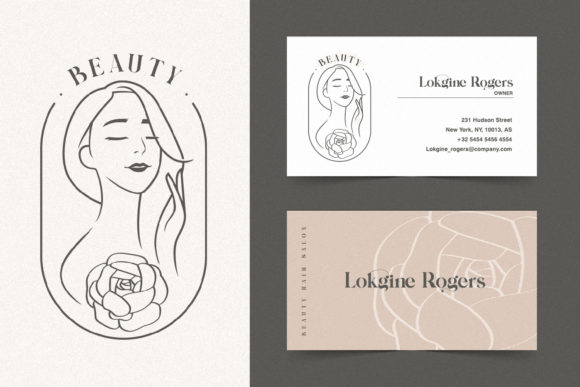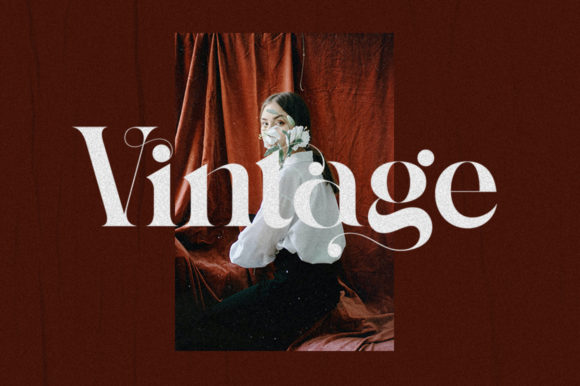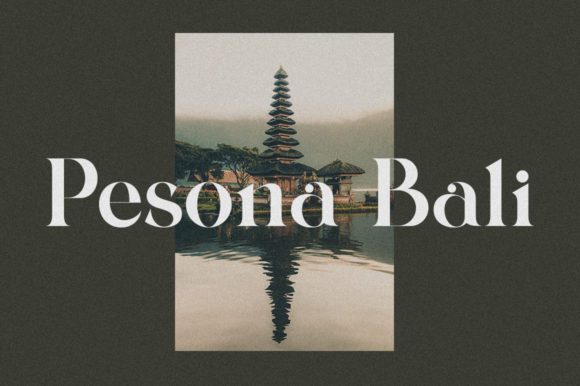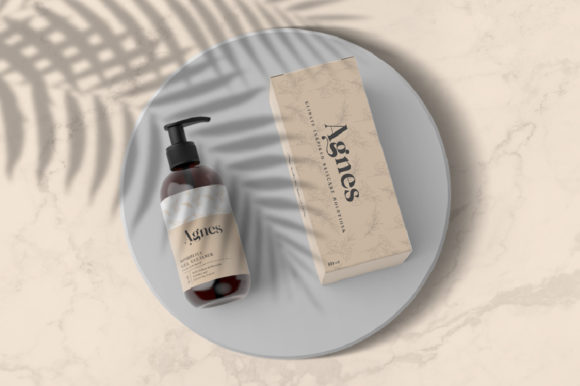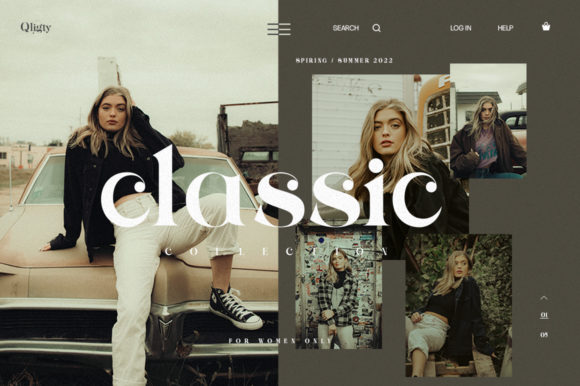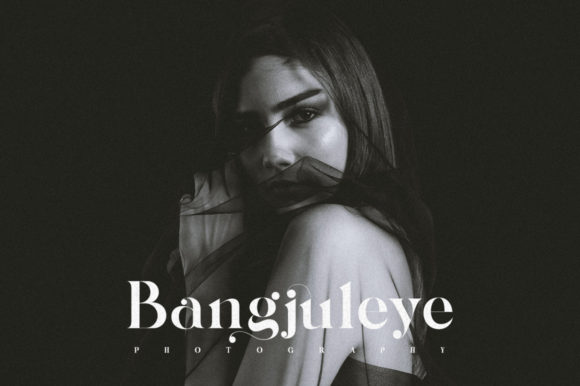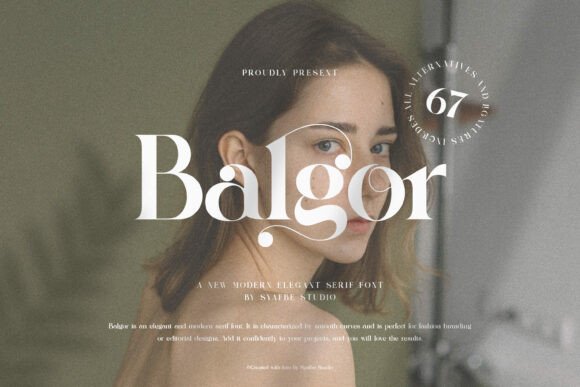
Balgor Font: Elevate Your Designs with Elegance and Modernity
In the realm of typography, a font can make or break the visual appeal of a design. For designers and crafters seeking to infuse their projects with a touch of sophistication and contemporary flair, the Balgor Font stands out as an exceptional choice. This elegant and modern serif font is characterized by its smooth curves, making it perfect for fashion branding, editorial designs, and a myriad of other creative endeavors.
The Essence of Balgor Font
Balgor Font is a masterpiece of modern typography, blending traditional serif elements with a fresh, contemporary aesthetic. Its design is centered around creating a harmonious balance between elegance and readability, making it an ideal selection for projects where visual impact and clarity are paramount.
Key Features of Balgor Font
- Elegant and Modern Design: Balgor Font boasts a sleek, modern look that instantly elevates the sophistication of any design.
- Smooth Curves: The font’s smooth curves contribute to its elegance, providing a fluid and harmonious appearance that captures the eye.
- Serif Details: The subtle serif details add a layer of classic sophistication, making the font versatile for various design applications.
- High Readability: Despite its elegant appearance, Balgor Font maintains high readability, making it suitable for body text as well as headlines.
Applications of Balgor Font
The versatility of Balgor Font makes it an excellent choice for a wide range of design projects. Here are some of the areas where Balgor Font truly shines:
Fashion Branding
In the competitive world of fashion, branding is everything. Balgor Font, with its elegant and modern appeal, is perfect for fashion brands looking to establish a sophisticated and contemporary image. Whether it’s for a luxury fashion label or a trendy apparel brand, Balgor Font can help convey the desired aesthetic with precision.
Editorial Designs
For editorial designs, such as magazines, newspapers, and blogs, typography plays a crucial role in engaging readers. Balgor Font’s readability and elegant appearance make it an excellent choice for editorial content, ensuring that readers are drawn into the narrative with ease.
Digital and Print Media
Balgor Font’s adaptability to both digital and print media makes it a valuable asset for designers. Whether you’re working on a website, social media graphics, or print materials like brochures and posters, Balgor Font can be seamlessly integrated to enhance visual appeal.
Why Choose Balgor Font?
With numerous fonts available, why should designers and crafters choose Balgor Font for their projects? The answer lies in its unique blend of modernity and elegance. Unlike traditional serif fonts that may feel outdated or overly ornate, Balgor Font strikes a perfect balance, ensuring that designs look contemporary yet sophisticated.
How to Use Balgor Font Effectively
To make the most of Balgor Font, consider the following tips:
- Pair with Complementary Fonts: For maximum impact, pair Balgor Font with sans-serif fonts to create a visually appealing contrast.
- Adjust Font Sizes: Use varying font sizes to create a hierarchy of information, making it easier for readers to navigate the content.
- Experiment with Colors: While Balgor Font looks stunning in classic black and white, don’t be afraid to experiment with colors that match your brand’s palette.
Balgor Font is more than just a typeface; it’s a design statement. Its elegant and modern serif design, characterized by smooth curves, makes it an ideal choice for fashion branding, editorial designs, and a host of other creative projects. By incorporating Balgor Font into your designs, you’re not just choosing a font; you’re elevating your project’s aesthetic and engaging your audience with a visually stunning typography. Add Balgor Font confidently to your projects, and you’ll undoubtedly love the results.